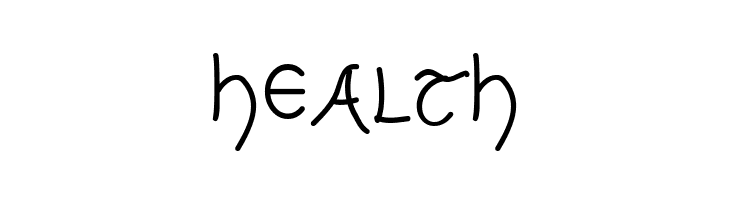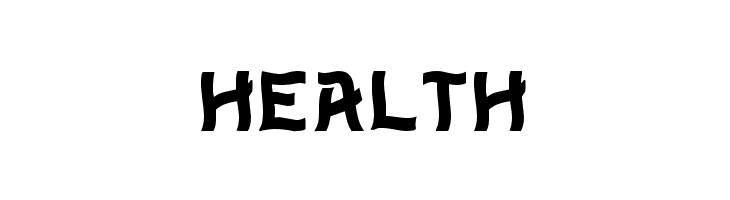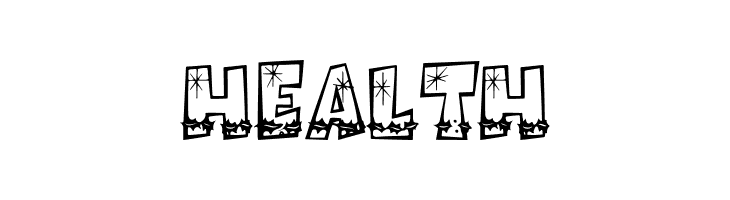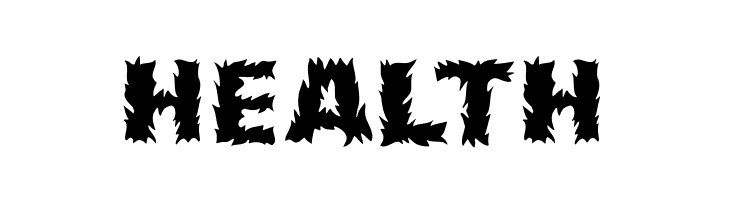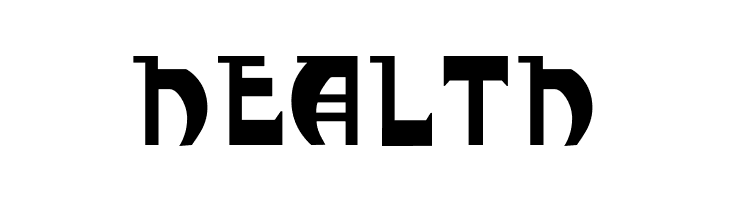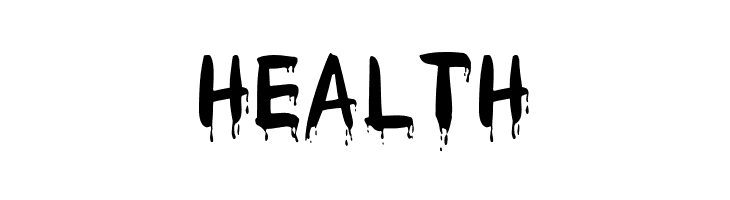
A whimsical, elegant font with a blend of curves and angles, inspired by ancient scripts.
A bold, high-contrast font with a dynamic, italicized style.
A playful, wavy font with bold, irregular strokes and a whimsical style.
A festive, holiday-themed font with bold letters decorated with holly and snowflakes.
A rugged, distressed font with a hand-painted, vintage aesthetic.
A bold, flame-inspired decorative font with dynamic, jagged edges.
A lively, handwritten-style font with energetic strokes and modern appeal.
A bold, jagged font with a rugged, distressed style.
A bold, modern font with geometric shapes and sharp angles.
A bold, dripping paint-style font with a dynamic and artistic flair.